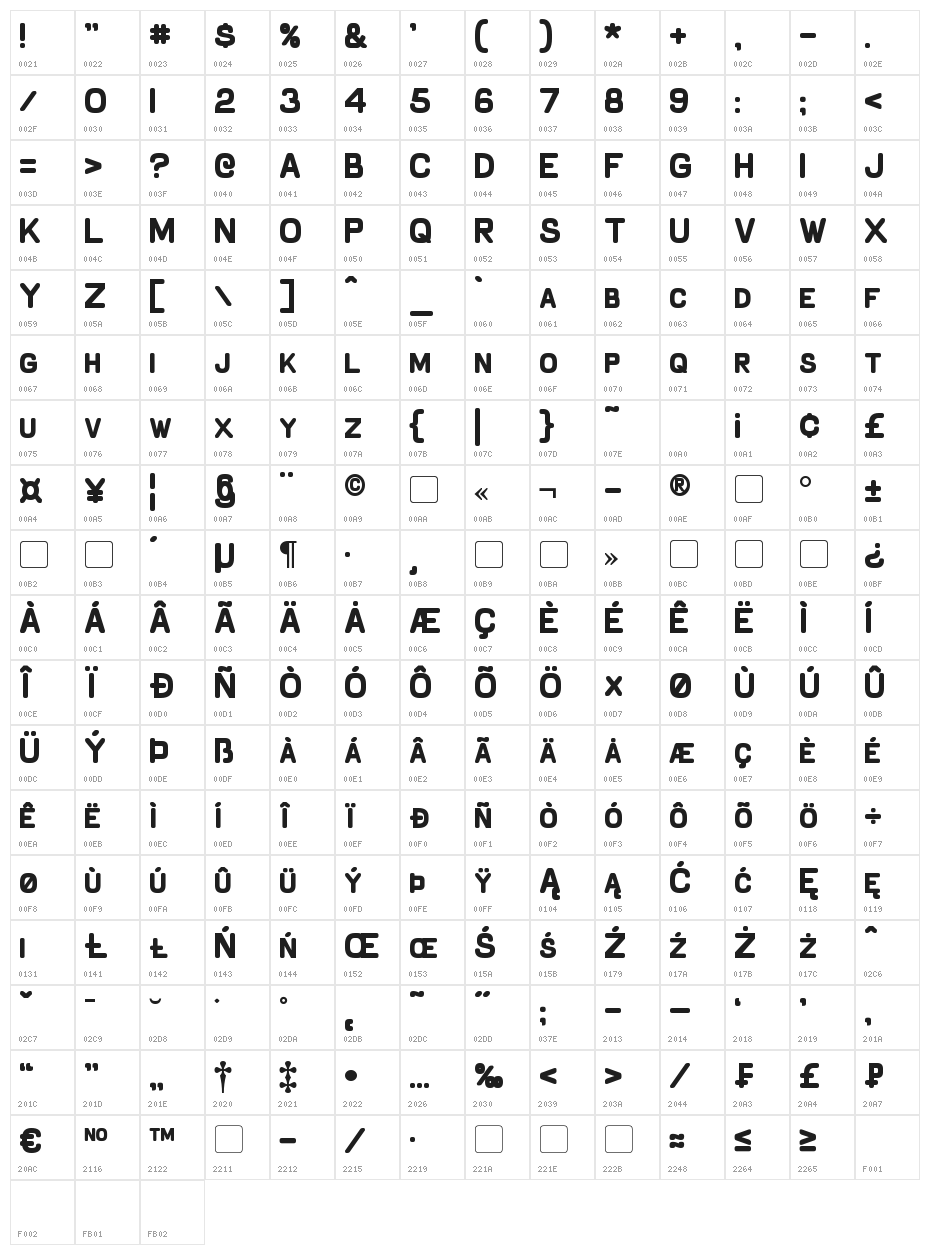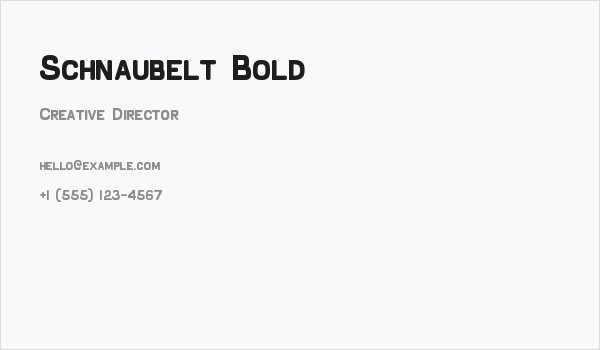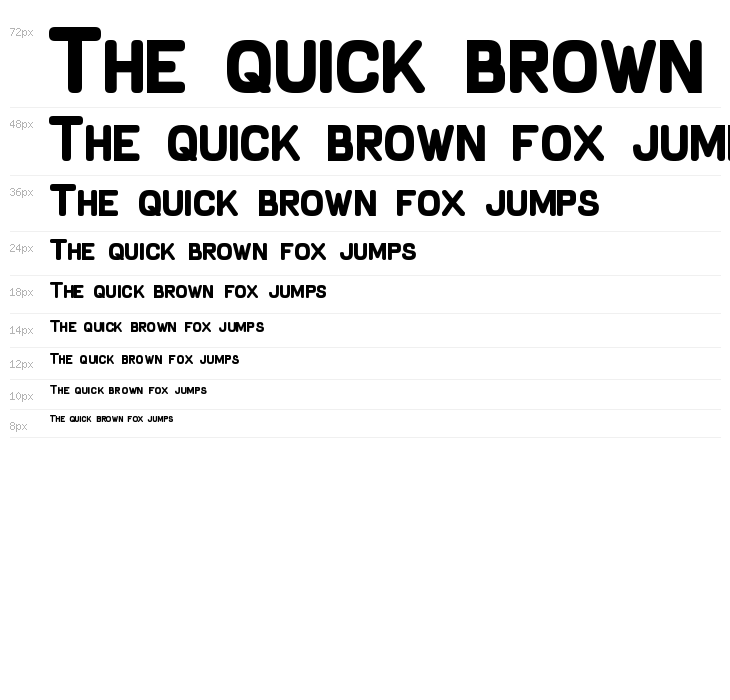
Schnaubelt Bold Font
Schnaubelt Bold Description
This font features bold, rounded characters with a strong presence and uniform stroke width, making it highly legible and impactful. The uppercase and lowercase letters maintain a consistent style, with smooth curves and a modern aesthetic. The numbers are equally bold, ensuring clarity and readability. Special characters are designed to match the overall boldness, providing a cohesive look across all glyphs. The font's design is clean and straightforward, suitable for various applications where a strong, modern typeface is required.
| Proposed Projects | Ideal for branding, headlines, posters, and any design project requiring a strong, modern typeface. |